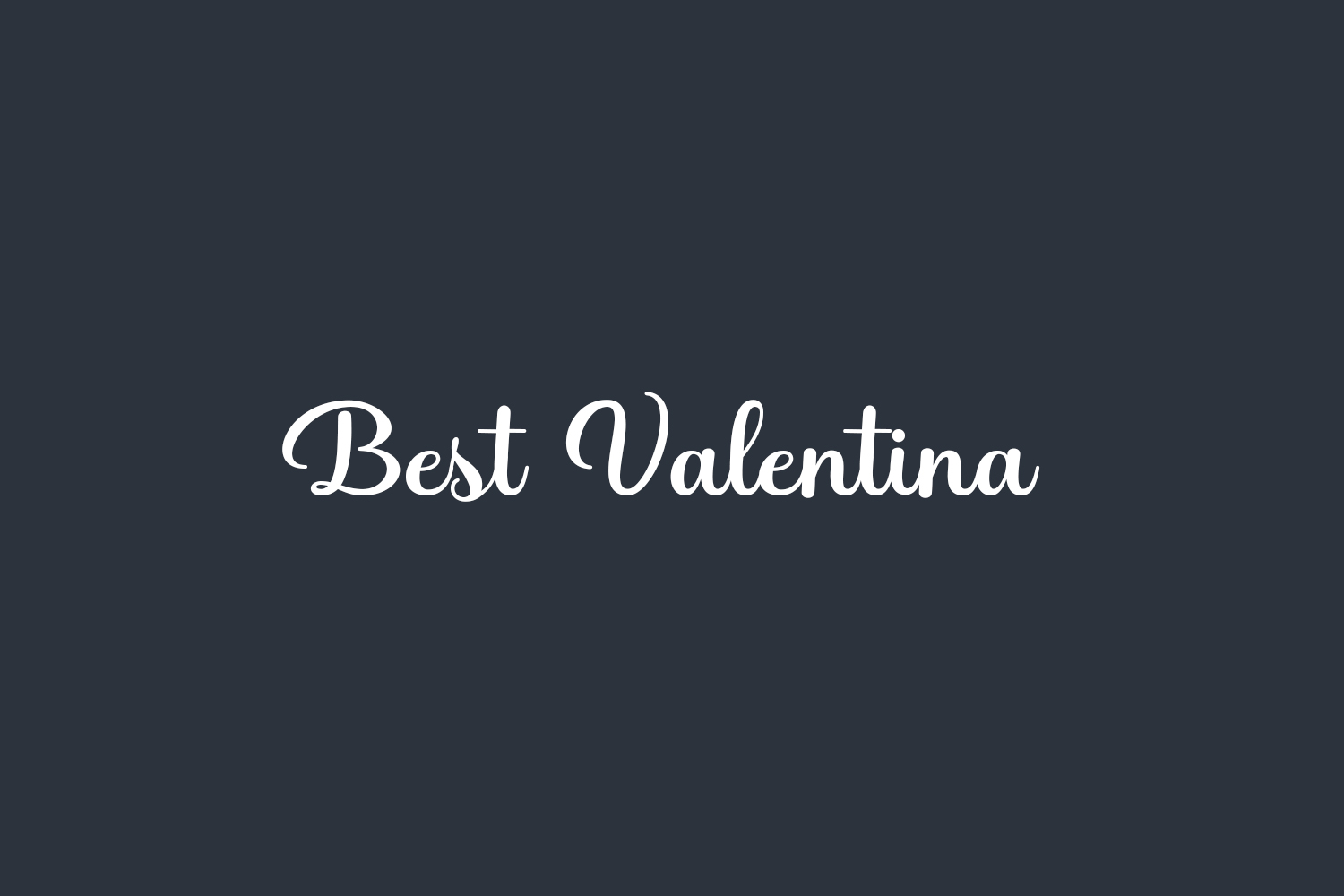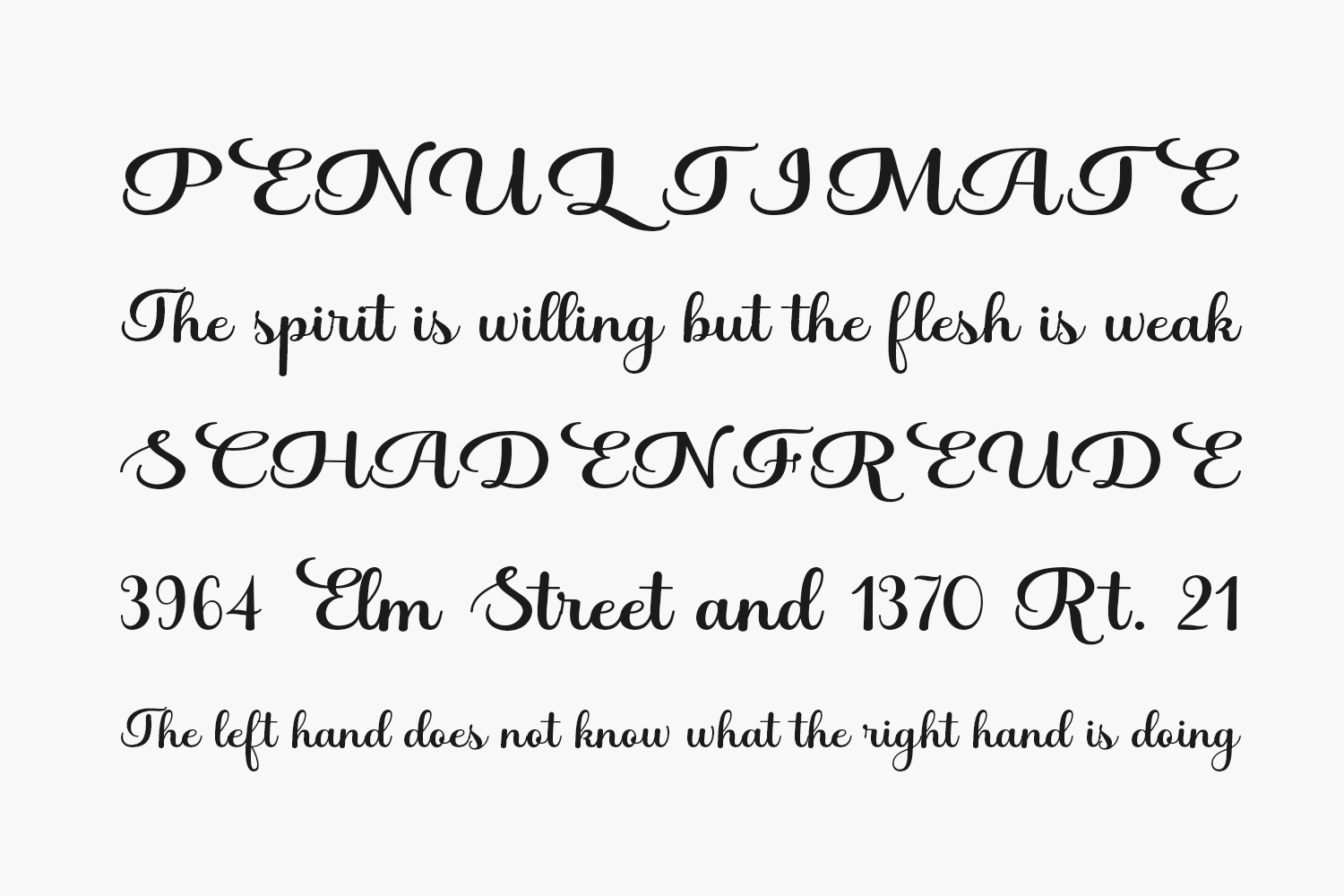
Best Valentina Free Font is an elegant script font with a contemporary atmosphere and impeccable form, inspired by a timeless classic calligraphy. Not too thin and not too thick, balanced and varied, this font was designed to enhance the beauty of your projects. Best Valentina Free Font was designed by Romi Rahmadi and is free for personal use only. Please purchase the full version for commercial use.
Designed by Romi Rahmadi